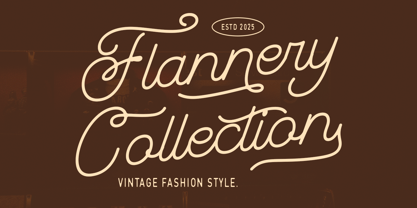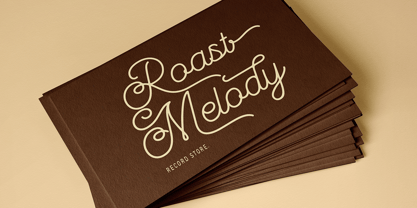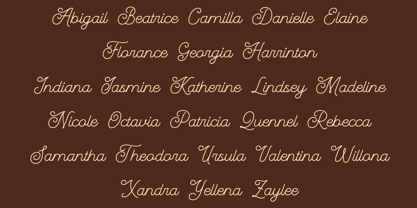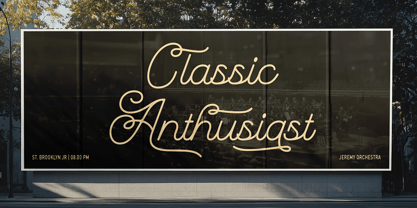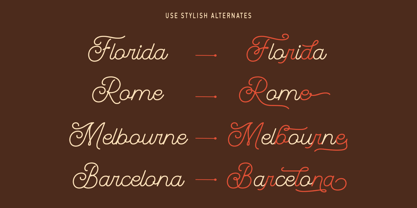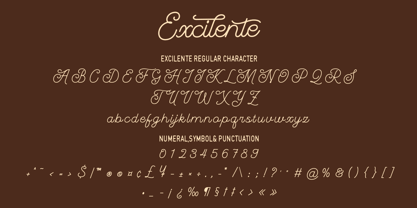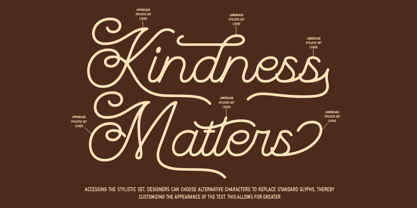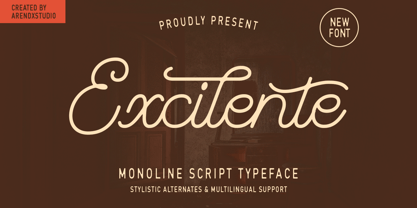
Excilente
by Arendxstudio
The Excilente Font Family was designed by Asep Rendi and published by Arendxstudio. Excilente contains 1 styles. More about this family
Excitente is a stylish monoline script typeface designed by Arendxstudio. Featuring smooth curves and elegant connections, this font brings a modern retro aesthetic that's perfect for branding, packaging, posters, and logo design. With its clean, continuous lines, Excitente blends charm and readability, making it suitable for both display and headline use.
This font includes stylistic alternates for enhanced customization and multilingual support, ensuring versatility across various languages and design needs. Whether you're creating a vintage-inspired project or aiming for a classy handwritten feel, Excitente adds a touch of sophistication and warmth.
Features : Uppercase and lowercase characters
Numerals and Punctuation (OpenType Standard)
Accents (Supports Multilingual Characters)
Designers: Asep Rendi
Foundry: Arendxstudio